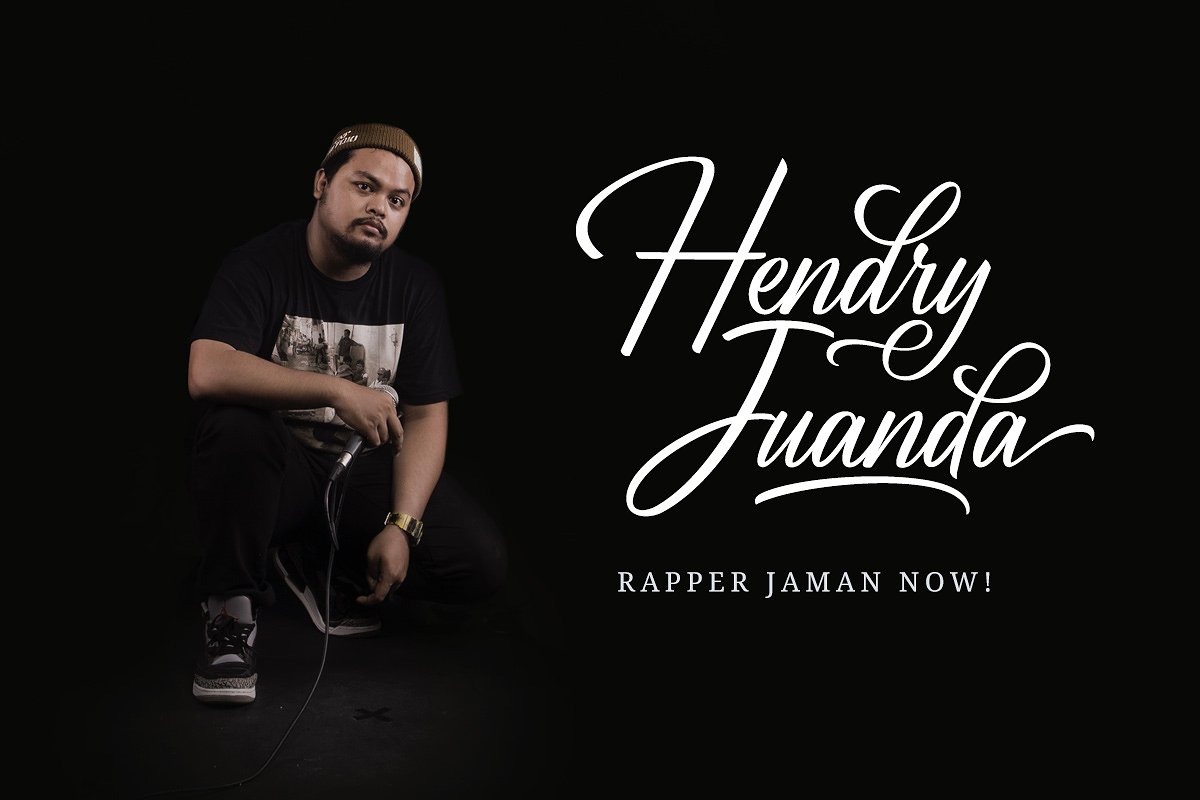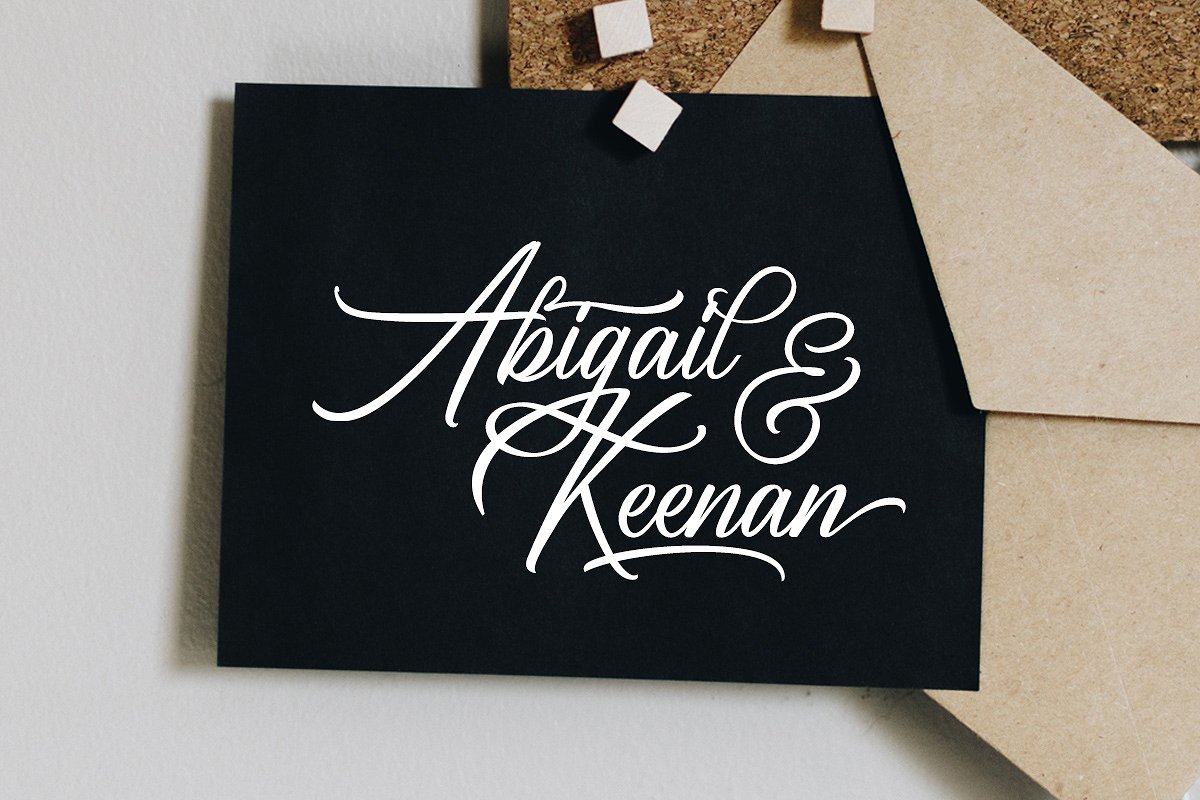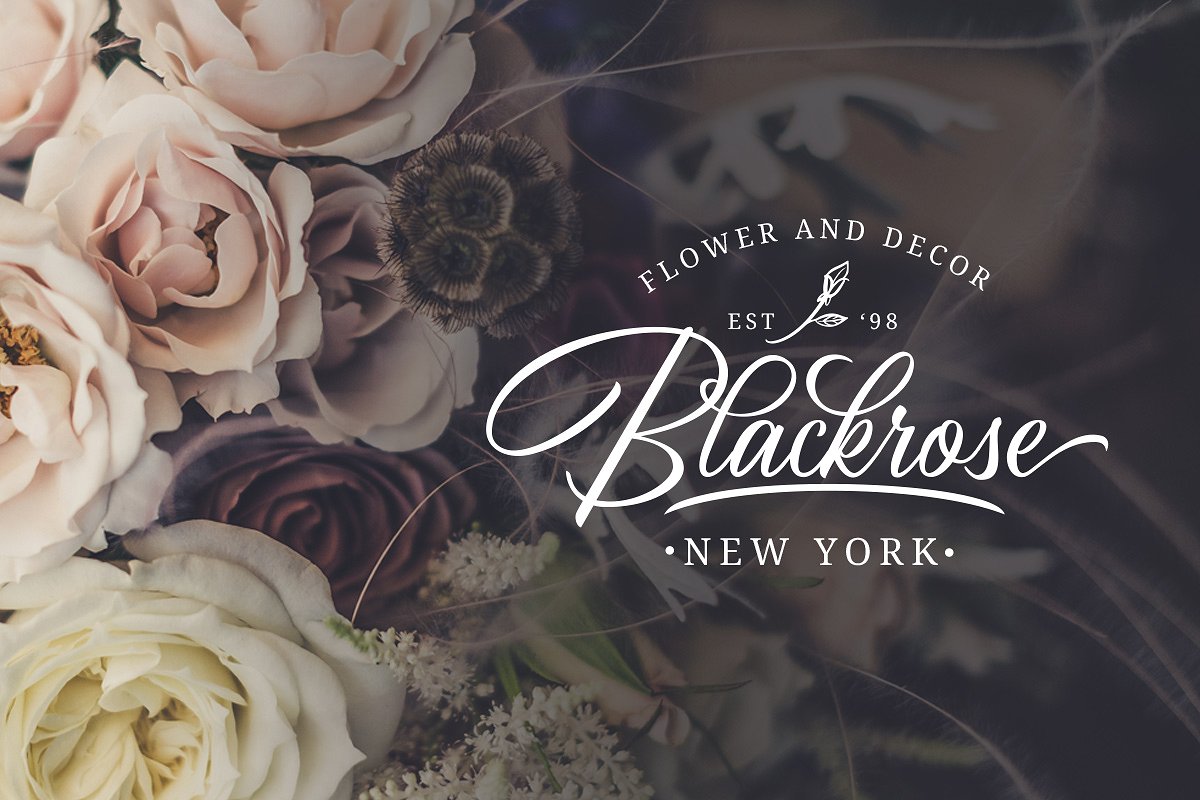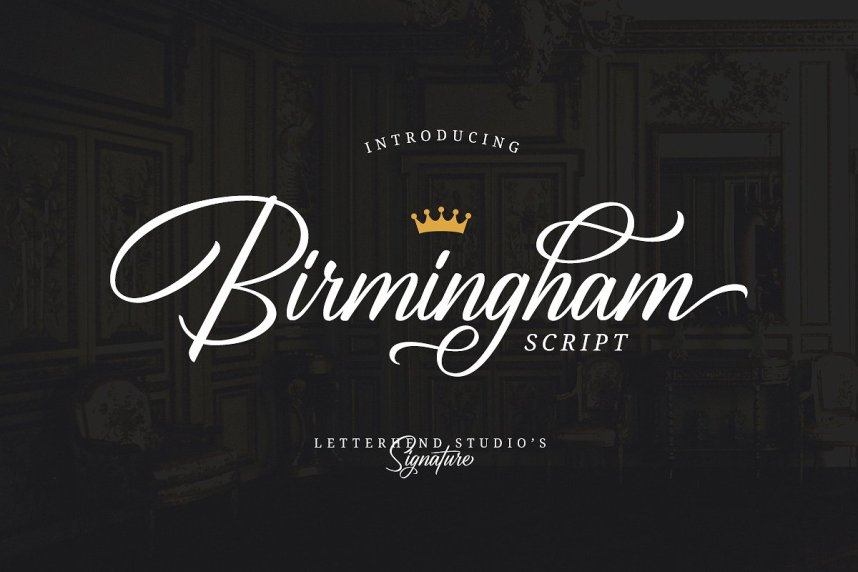
Birmingham Script Font
Hi Designer! A new fresh signature script font. Introducing Birmingham Font. It is designed and shared by Letterhend . Birmingham Script Font is an elegant signature that contain lowercase, uppercase, symbol, and also support multi language. There’s a lot alternates in this font. You can use this font to make a logo for branding, beautiful fashion design, suitable for wedding invitation, or for an authentic signature.